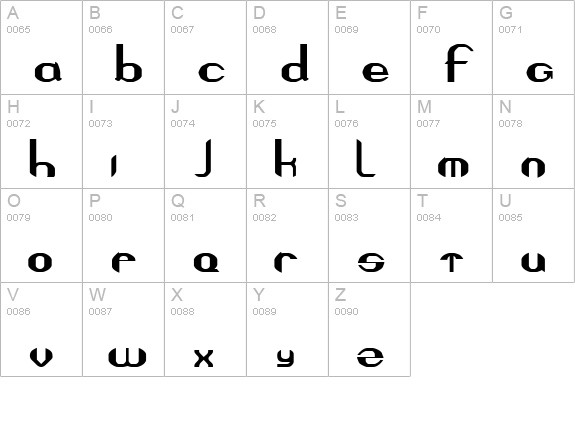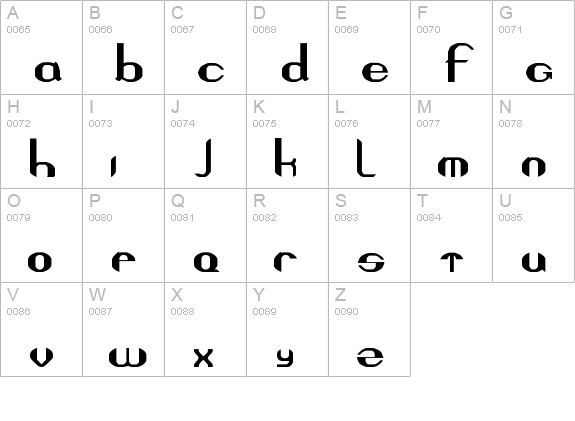
QUESTOR Font Details
Introducing QUESTOR font, a stunning typeface that effortlessly combines elegance and versatility. This font is perfect for adding a touch of sophistication to your designs, whether it's for branding, advertising, invitations, or any other creative project. With its clean lines and graceful curves, QUESTOR font exudes a sense of timeless beauty that will captivate your audience. But what sets QUESTOR font apart is not just its aesthetic appeal, but also the fact that it is available for free! That's right, this exquisite font can be yours without spending a dime. Simply head over to FontsMarket.com, where you can freely download QUESTOR font and unleash your creativity. Designed with meticulous attention to detail, QUESTOR font offers a wide range of weights and styles, making it incredibly versatile for various design purposes. From elegant headlines to stylish body text, this font effortlessly adapts to any project, elevating it to new heights of sophistication. Whether you're a professional designer or a hobbyist, QUESTOR font is the perfect addition to your font library. Its timeless elegance and free availability make it a must-have resource for anyone seeking to create visually stunning and impactful designs. So why wait? Download QUESTOR font today from FontsMarket.com and unlock the endless possibilities it offers. Let your creativity soar as you explore the boundless potential of this remarkable typeface. With QUESTOR font, you'll never have to compromise on style or budget again.